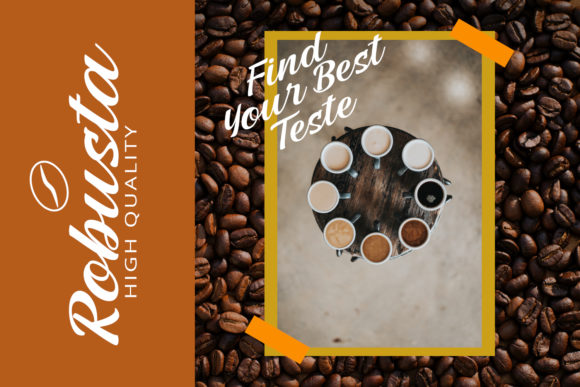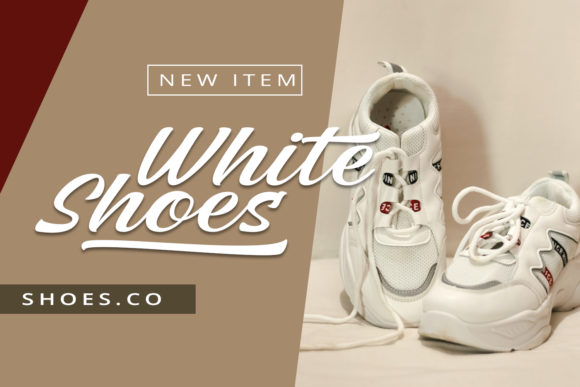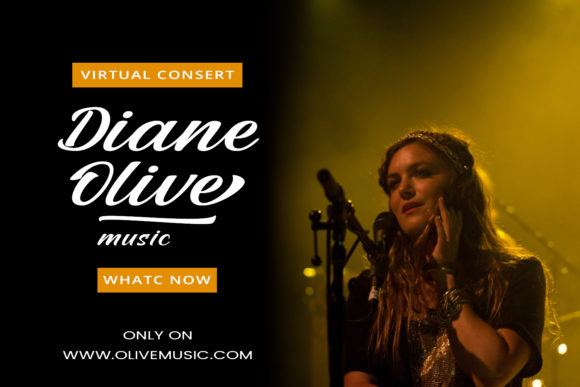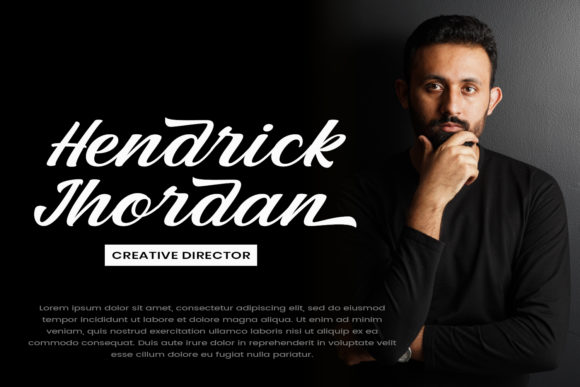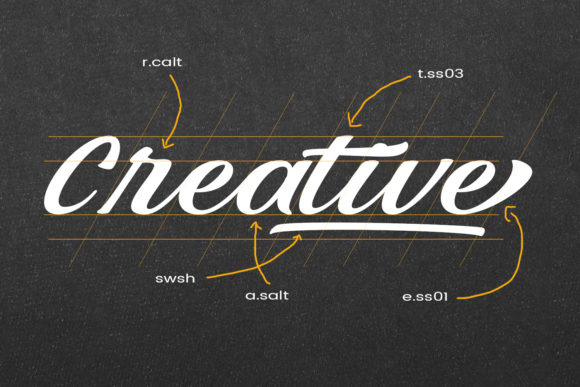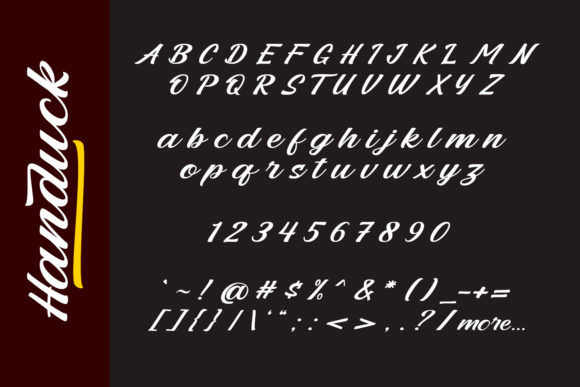
Introducing Handuck Font: Elevate Your Designs with a Stylish and Dynamic Touch
In the world of typography, fonts play a crucial role in conveying the tone and personality of a design. For designers and crafters looking to add a touch of nostalgia and sophistication to their projects, Handuck Font is an excellent choice. This gorgeous and thick, brushed handwritten font is crafted to give your headlines and logotype projects a stylish touch, making it perfect for a wide range of design applications.
The Characteristics of Handuck Font
Handuck Font reads as strong, confident, and dynamic, making it an ideal choice for designers who want to make a statement. Its thick, brushed strokes give it a unique texture that adds a layer of depth and character to any design. The font’s handwritten nature also adds a touch of warmth and personality, making it perfect for projects that require a more human feel.
Key Features of Handuck Font
- Strong and Confident: Handuck Font’s bold strokes and confident lettering make it perfect for headlines, titles, and logotypes that require a strong presence.
- Dynamic and Expressive: The font’s brushed texture and handwritten nature give it a dynamic and expressive feel, making it ideal for designs that require a touch of personality.
- Nostalgic Character: Handuck Font’s classic, vintage feel adds a touch of nostalgia to any design, making it perfect for projects that require a retro or distressed look.
- Versatile: The font’s versatility makes it suitable for a wide range of design applications, from branding and advertising to packaging and digital media.
Uses of Handuck Font
Handuck Font is perfect for designers and crafters who want to add a touch of style and sophistication to their projects. Here are some of the many uses of this gorgeous font:
- Branding and Logotypes: Use Handuck Font to create stunning logos and brand identities that make a statement.
- Headlines and Titles: The font’s bold strokes and confident lettering make it perfect for headlines, titles, and subtitles.
- Advertising and Marketing: Handuck Font is ideal for advertising and marketing materials, such as brochures, flyers, and social media graphics.
- Packaging: Add a touch of style and sophistication to your packaging designs with Handuck Font.
- Digital Media: The font is also perfect for digital media, including website headers, email newsletters, and social media graphics.
Tips for Using Handuck Font
To get the most out of Handuck Font, here are some tips to keep in mind:
- Use it boldly: Handuck Font is designed to make a statement, so don’t be afraid to use it boldly and prominently in your designs.
- Experiment with colors: The font’s brushed texture looks great in a variety of colors, so experiment with different hues and combinations to find the perfect look for your design.
- Pair it with other fonts: Handuck Font pairs well with other fonts, so don’t be afraid to experiment with different combinations to create a unique look.
Handuck Font is a gorgeous and versatile font that can add a touch of style and sophistication to any design. Its strong, confident, and dynamic lettering make it perfect for headlines, logotypes, and branding projects. With its nostalgic character and vintage feel, Handuck Font is an excellent choice for designers and crafters looking to add a touch of nostalgia to their designs. Whether you’re working on a branding project, advertising campaign, or packaging design, Handuck Font is sure to make a statement.